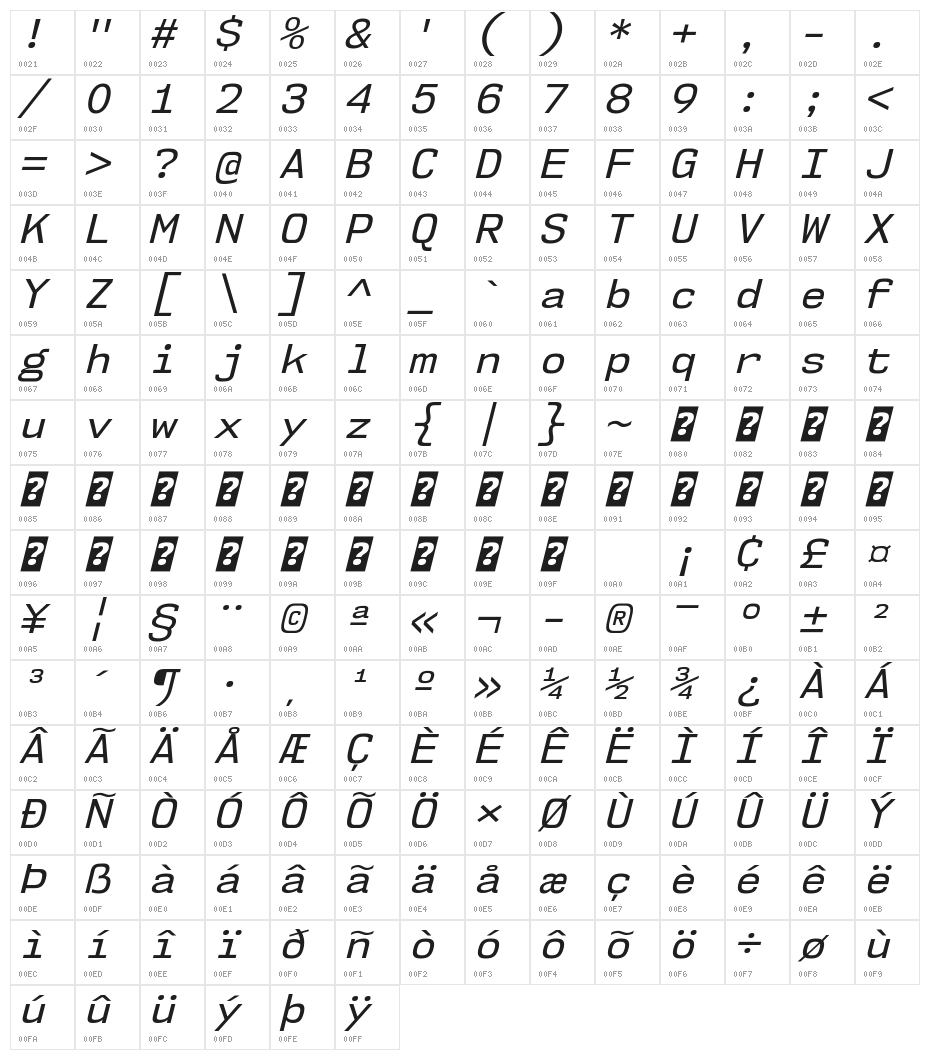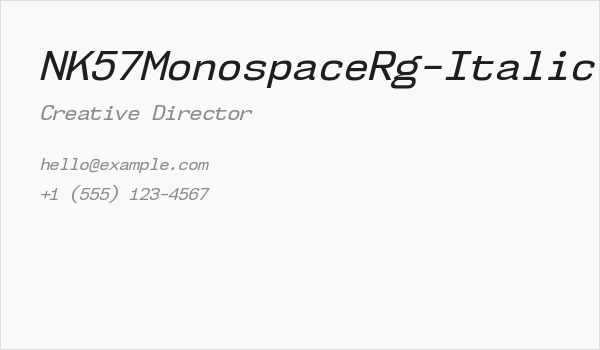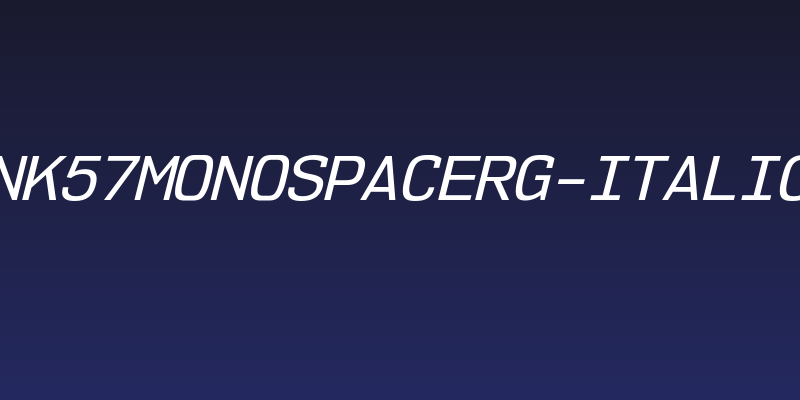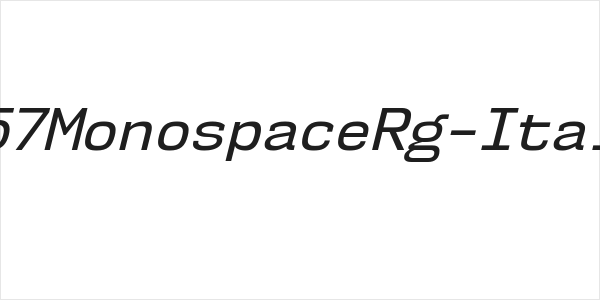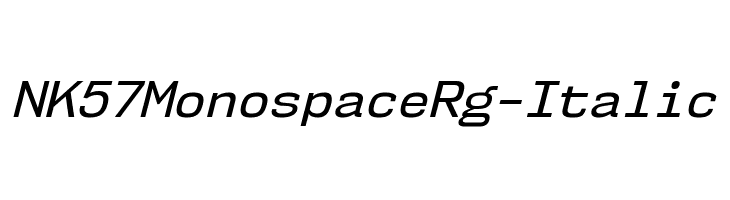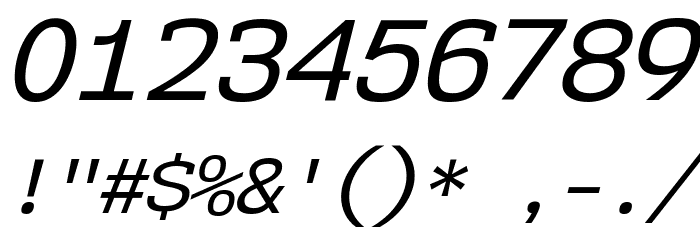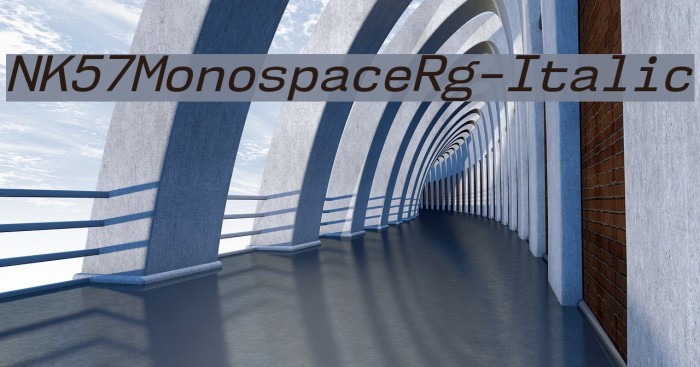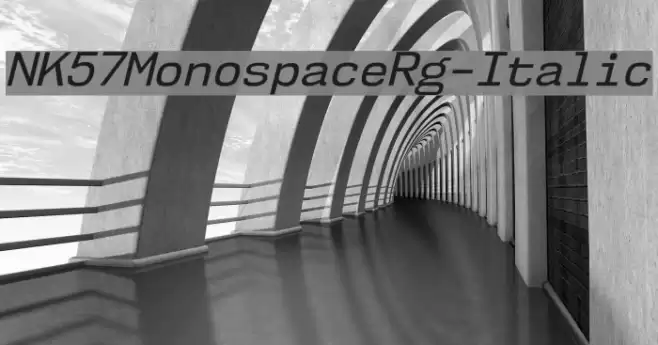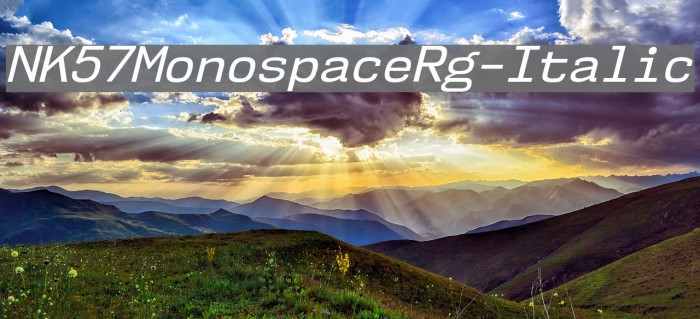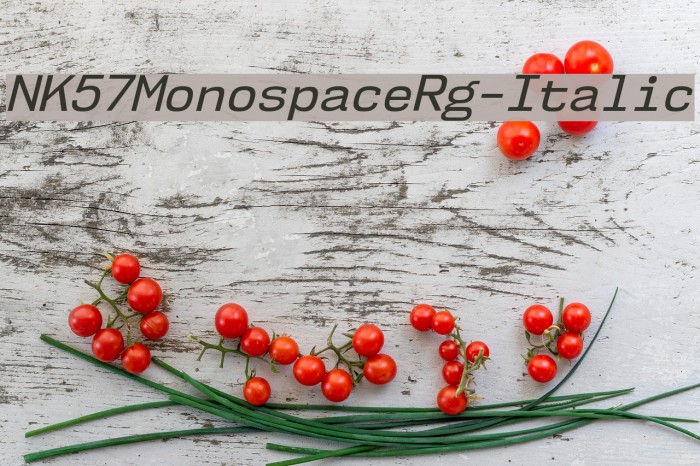
NK57MonospaceRg-Italic Font
NK57MonospaceRg-Italic Description
This font is a clean and modern monospaced typeface with a distinct italic style. Each character is evenly spaced, providing a uniform appearance that is ideal for coding and technical documents. The slanted design adds a dynamic and contemporary feel, making it suitable for both professional and creative projects. The font maintains a consistent stroke width, ensuring readability and clarity across all characters. Its geometric shapes and precise angles contribute to a sleek and efficient look, while the italic slant introduces a sense of motion and elegance.
| Use Case | Coding, Technical documents, Branding |
| Proposed Projects | Ideal for coding, technical documents, modern branding, and creative design projects. |